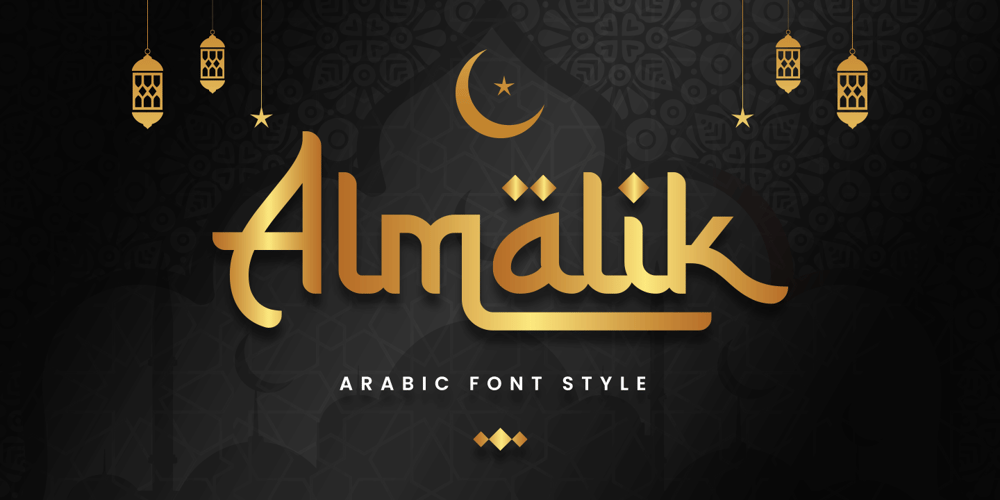
Almalik Font Family was designed by Ahmad Ramzi Fahruddin and published by Arterfak Project. Almalik contains 1 styles and family package options. Salaam.Introducing Almalik, an Arabic style font, created in monoline shape and based on original Arabic letters adapted into Latin typography.Almalik represents the middle-east feel in a modern touch, with fewer calligraphy shapes, and dynamic swashes. Perfect for many purposes such as fashion, food, packaging, label, logo, logotype, quotes, headline, branding, and more!This font provides 400+ glyphs including lots of alternates characters that you can apply to get your design looks more attractive!What you’ll get : Uppercase Lowercase Numbers & symbols Stylistic alternates Stylistic sets 01-03 Ligatures Multilingual support. PUA encoded. Thank you for your support!